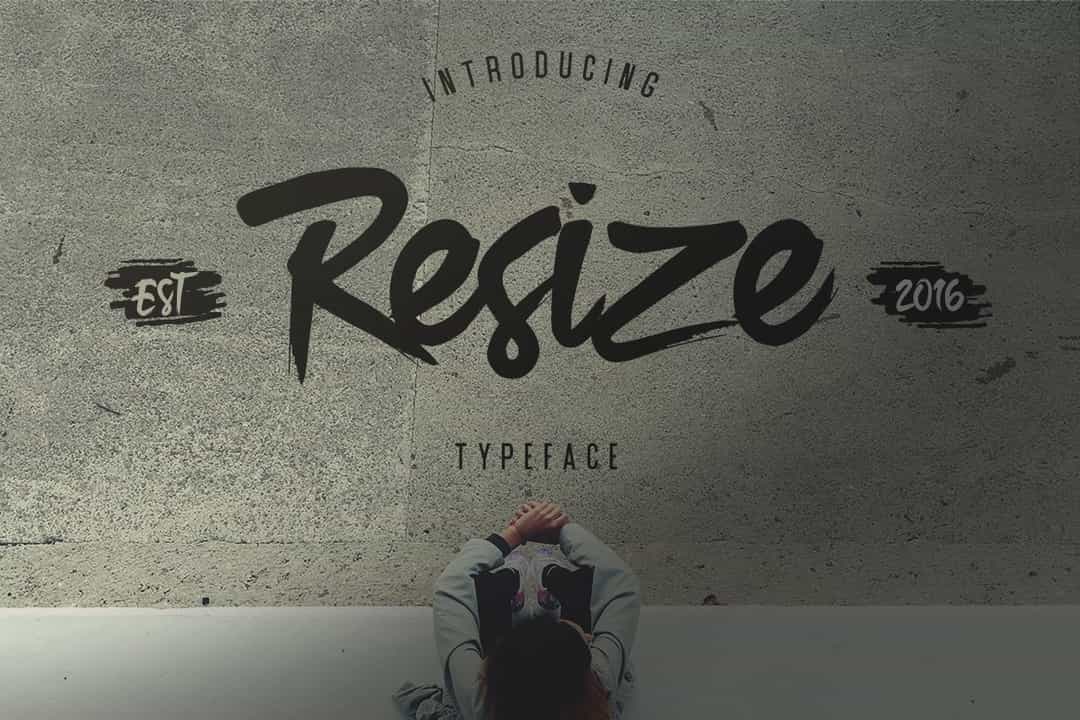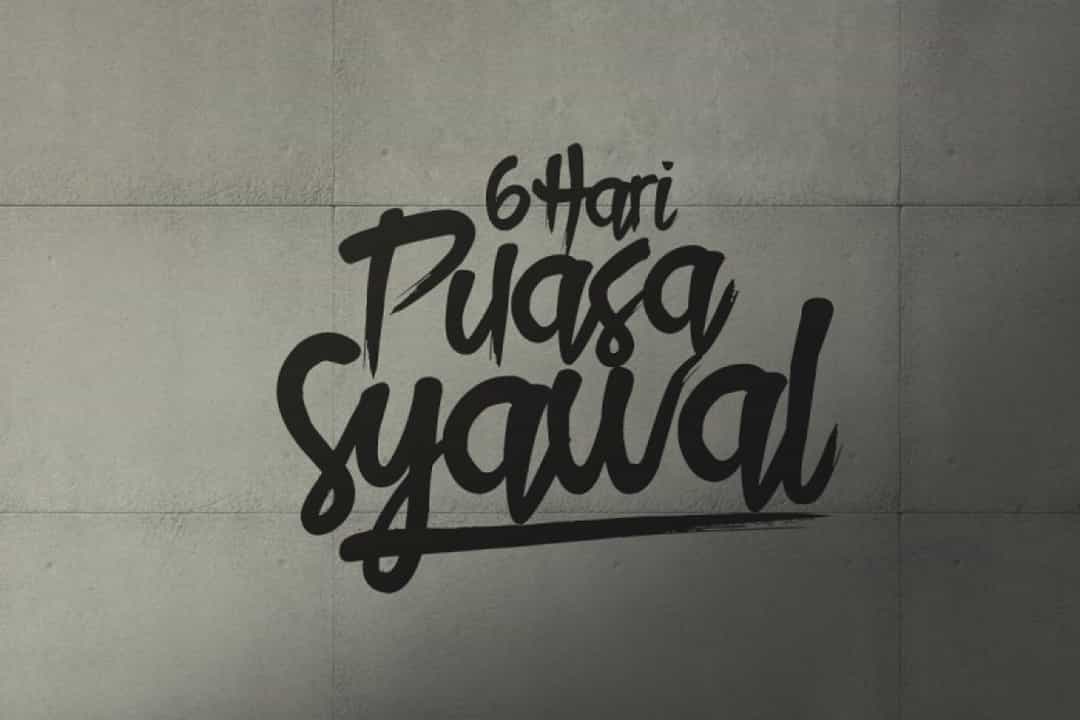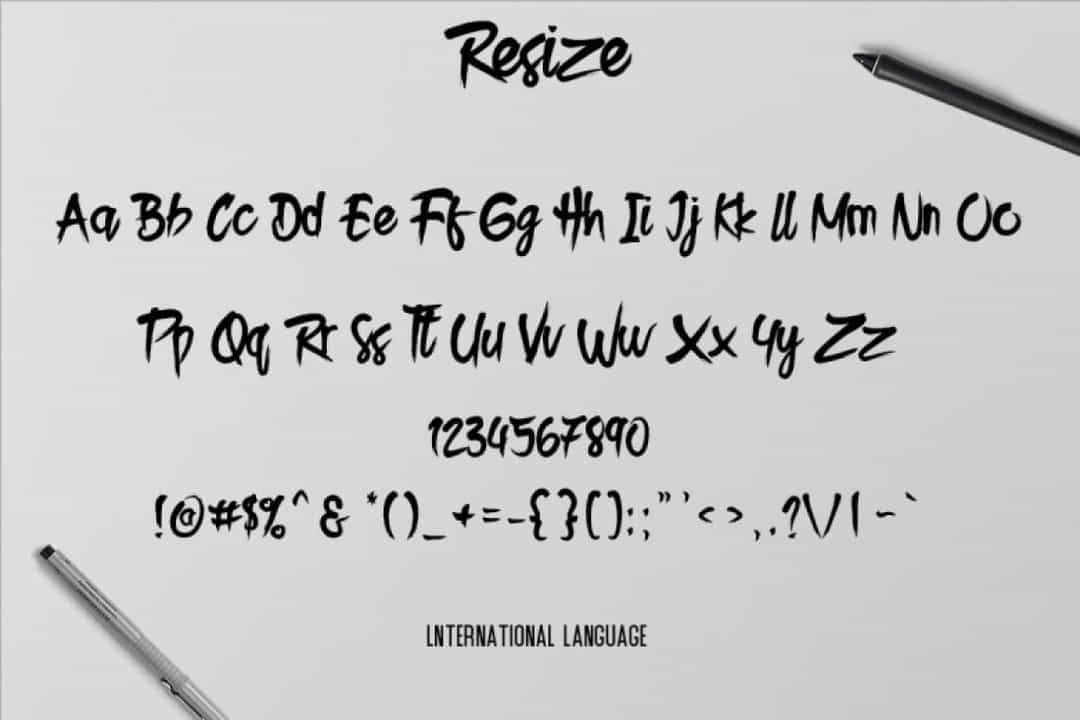
Discover Resize Font, part of the Brush collection—a versatile and unique font perfect for adding a personal touch to your projects. Download it for free and enjoy crafting designs with style, from invitations to social media posts. This font is available exclusively for personal use, giving you the freedom to create without limits. Unlock your creativity with Resize Font today!
Resize is a stylish yet relaxing brush stroke font that draws upon vintage styles for inspiration. Perfect for a variety of designs and applications; such as wedding invites thank-you cards greeting cards quotes business cards logos etc…, Resize looks fantastic.